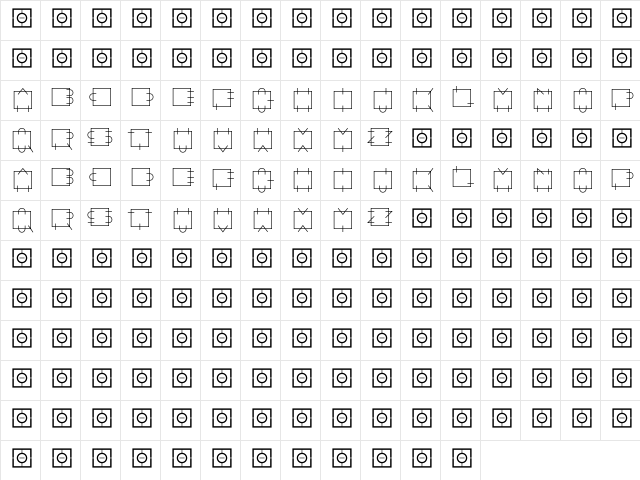
AlphaGeometrique Square
Design Context for AlphaGeometrique Typeface
AlphaGeometrique is a composed and adaptable typeface that performs quietly and consistently across a wide range of design contexts.